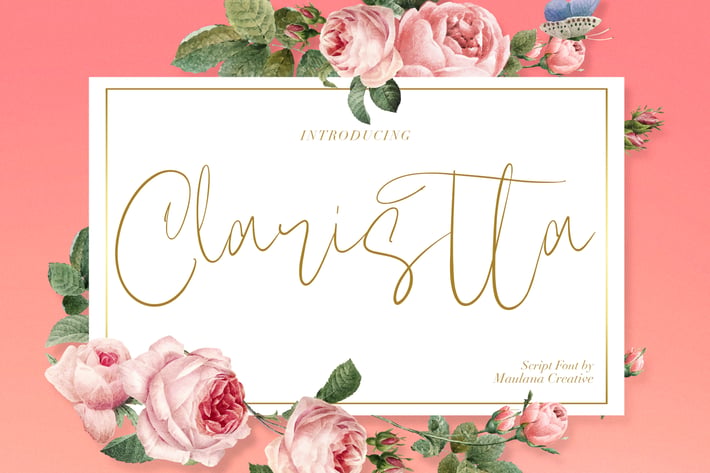
Claristta - Handwritten Brush Font
Give your designs an authentic handcrafted feel. "Claristta" is perfectly suited to signature, stationery, logo, typography quotes, magazine or book cover, website header, clothing, branding, packaging design and more. Included Ligatures.